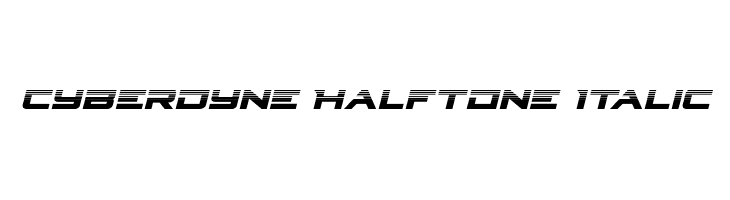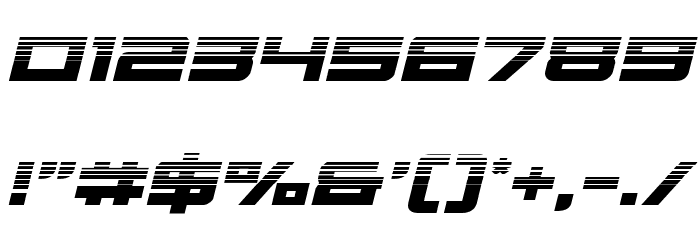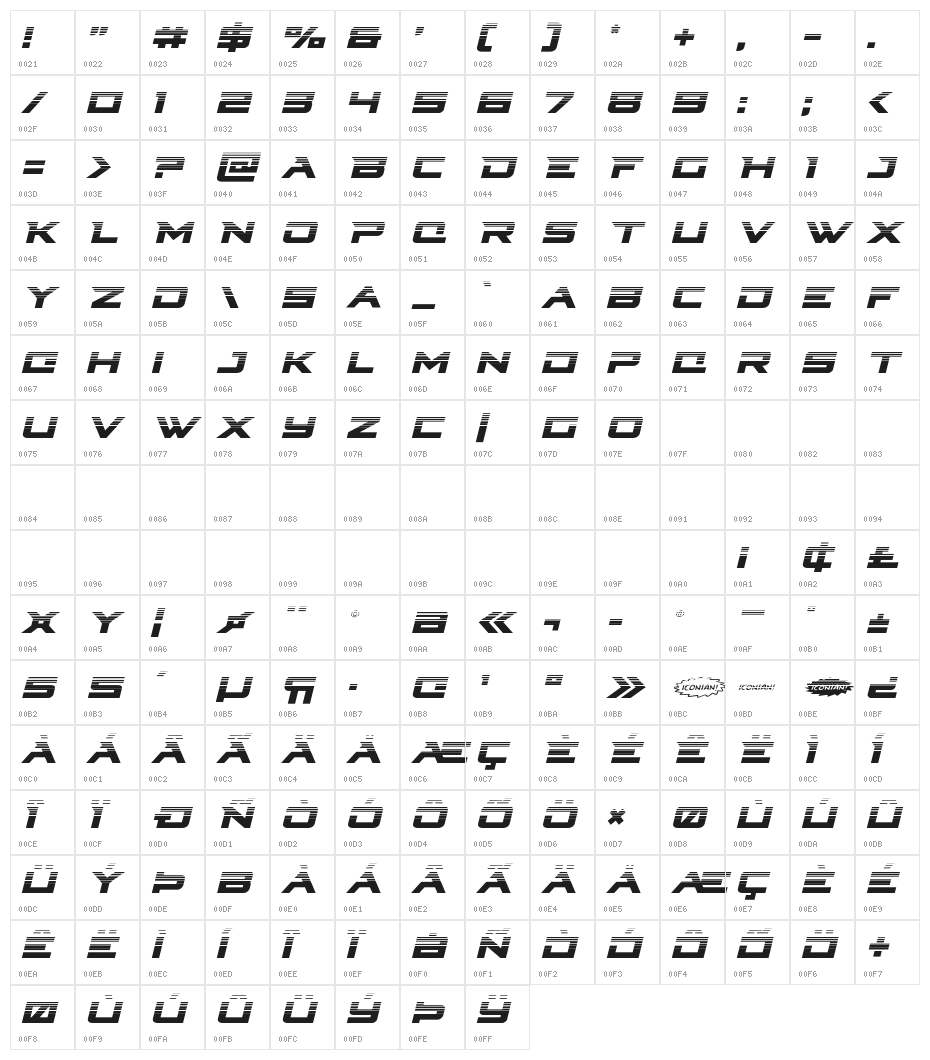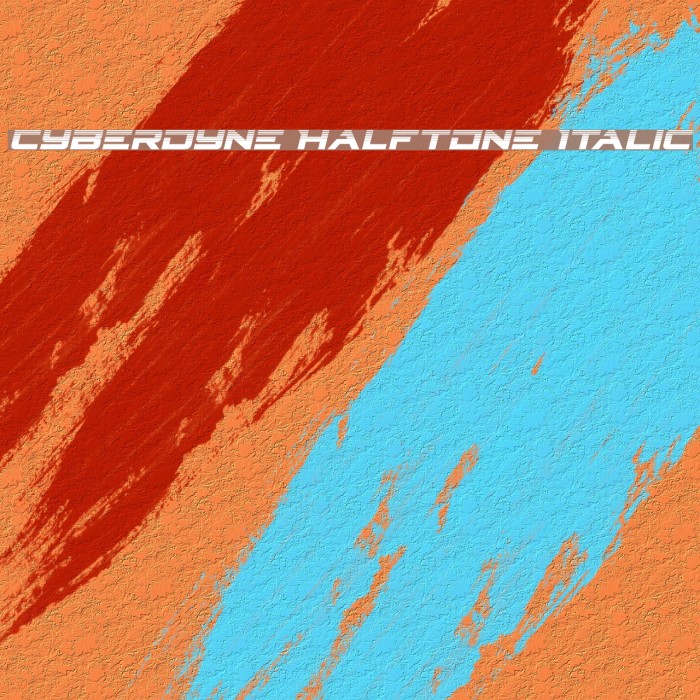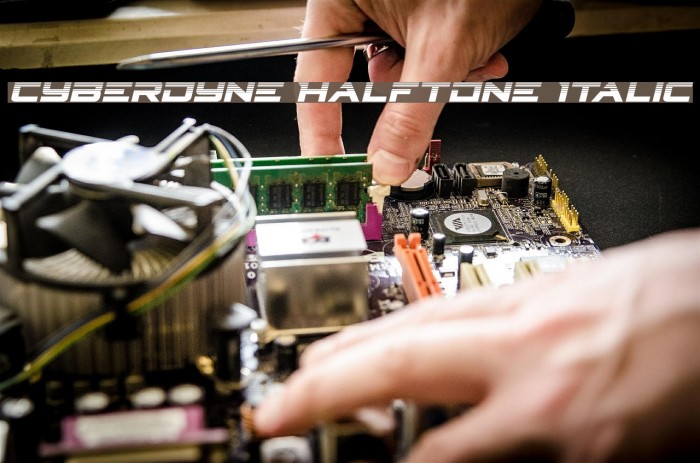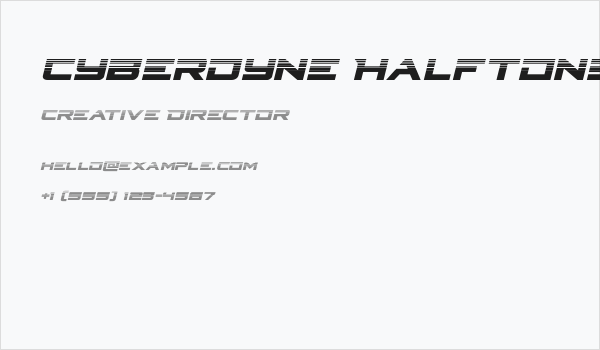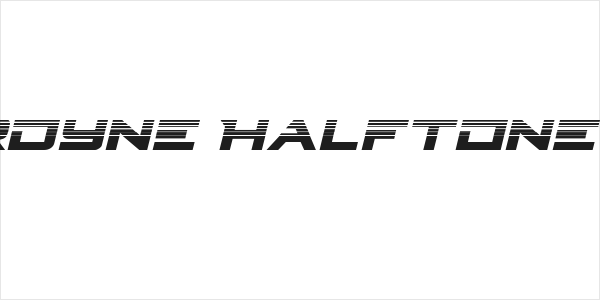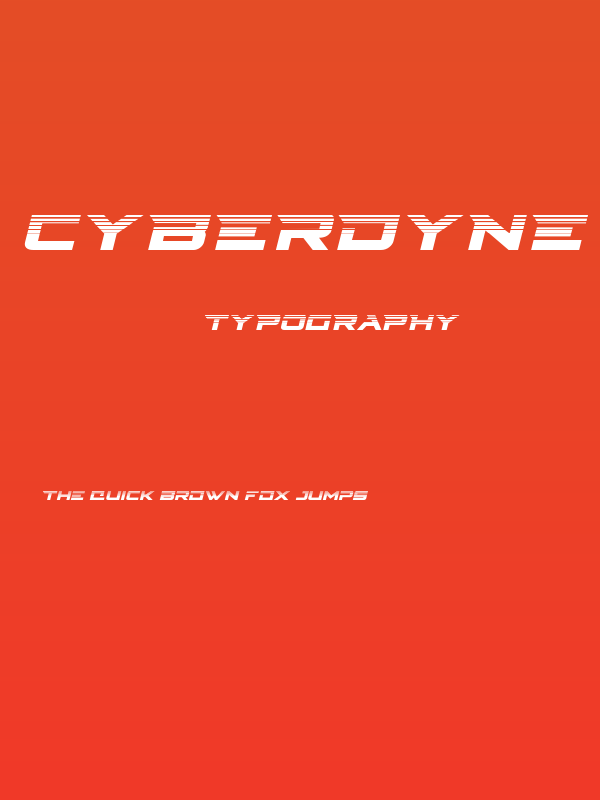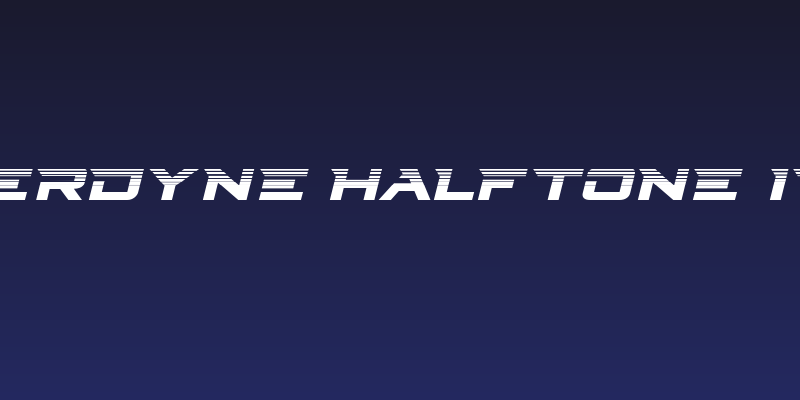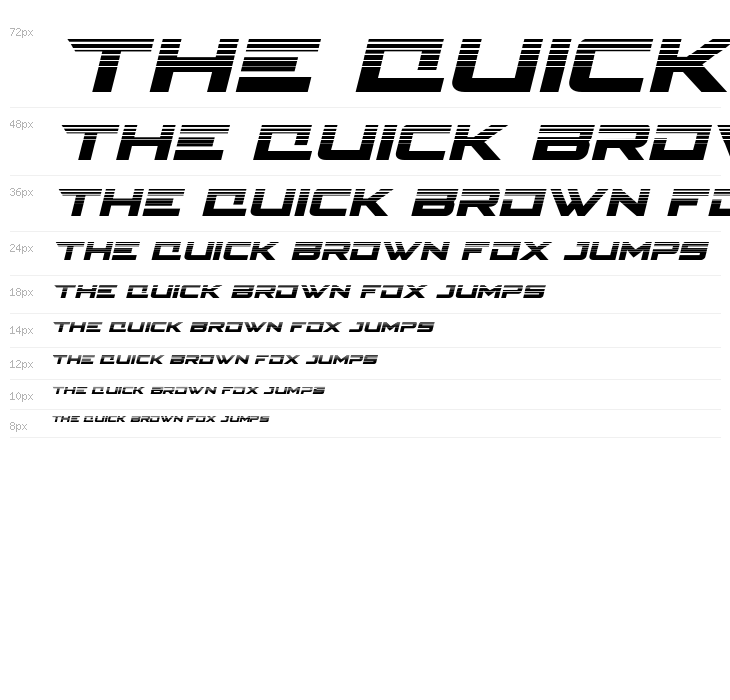
Cyberdyne Halftone Italic Font
Cyberdyne Halftone Italic Description
This font features a futuristic and dynamic design with a halftone effect that gives it a sense of movement and energy. The characters are italicized, adding a sleek and forward-leaning appearance. The use of horizontal lines within each character creates a unique texture, enhancing its modern and technological feel. The font is bold, with a strong presence that makes it ideal for attention-grabbing headlines or titles. Its geometric shapes and sharp angles contribute to a cutting-edge aesthetic, making it suitable for projects that require a contemporary and innovative look.